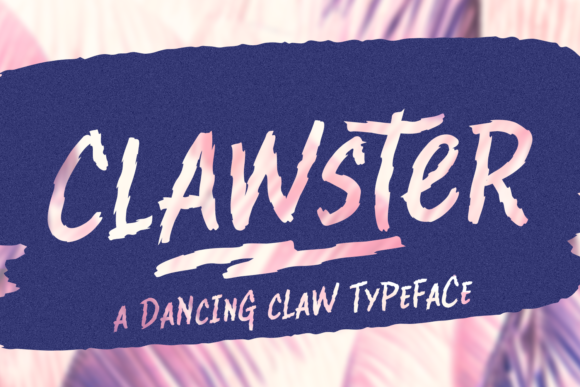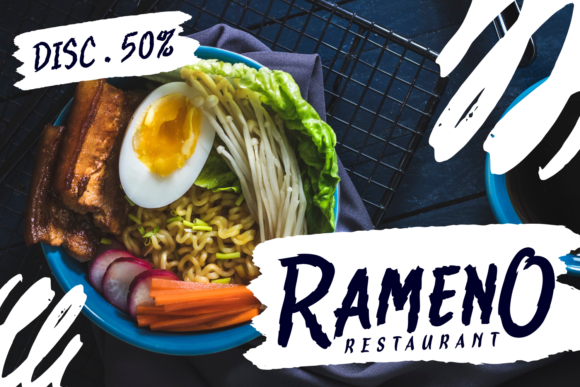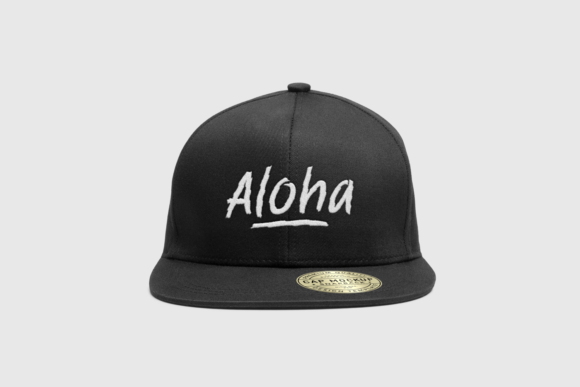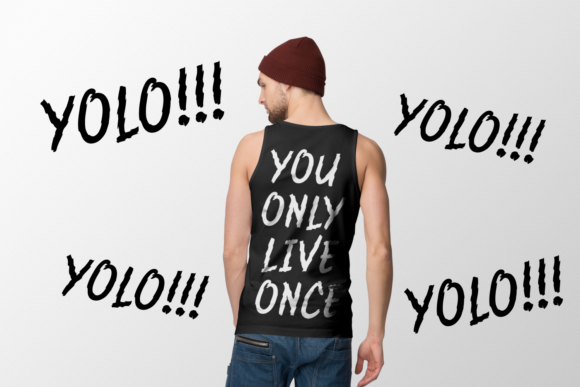
Clawster Font
About Clawster Font
The Clawster is an unique script font. Its raw letters have a great readability and will add a striking touch to your designs.